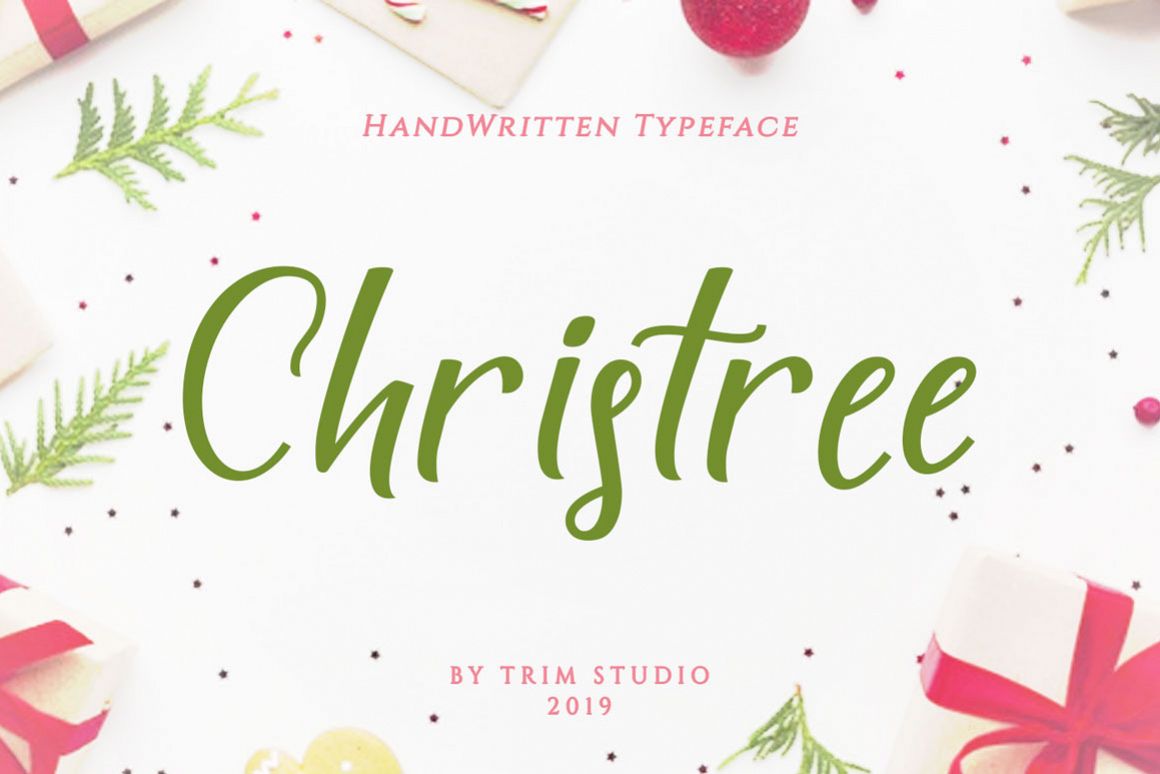
Christree - Handwritten Christmas
Christree
Christree is handwritten font for christmas and valentine, with sweetness touch and feel would bring happiness for lovers